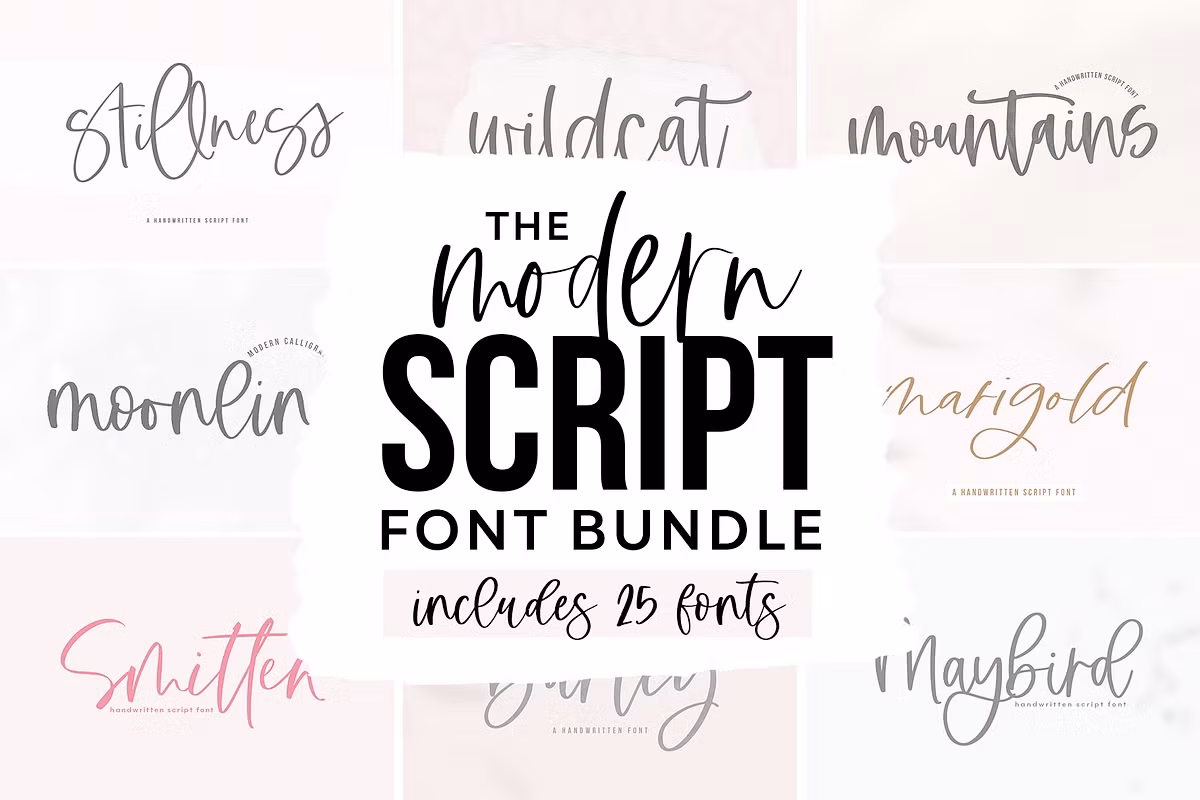
Modern Script Font Bundle Free Download is a stunning collection of elegant, hand-lettered typefaces crafted to bring beauty, fluidity, and style to any design project. Perfect for wedding invitations, feminine branding, social media posts, product packaging, and stylish logos, this bundle offers a wide variety of flowing scripts with contemporary charm.
Modern Script Font Bundle Free Download includes multiple script styles—from chic and minimal to ornate and romantic—giving designers the flexibility to create personalized, standout typography. Whether you're aiming for soft sophistication or bold elegance, this bundle has the perfect script to match your creative vision. Download it today and enhance your design toolkit with this versatile and graceful font collection.